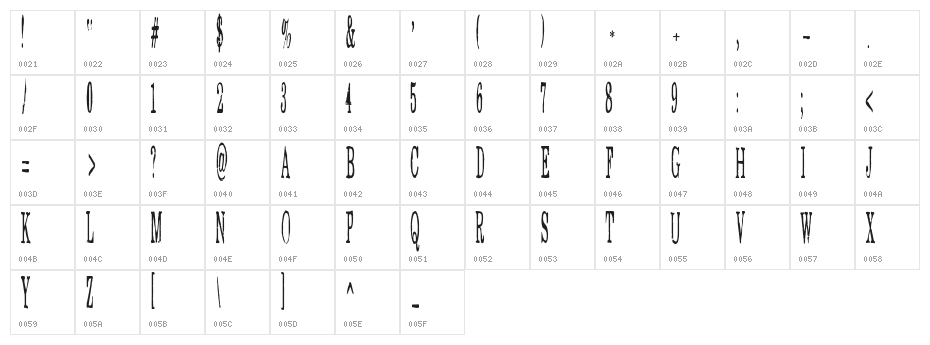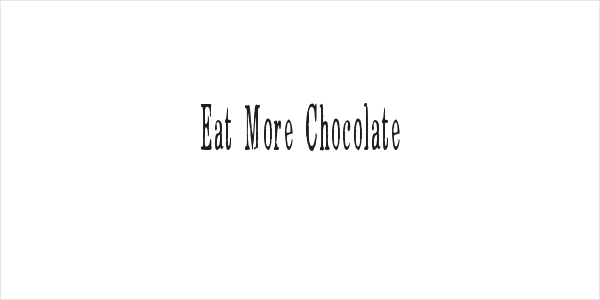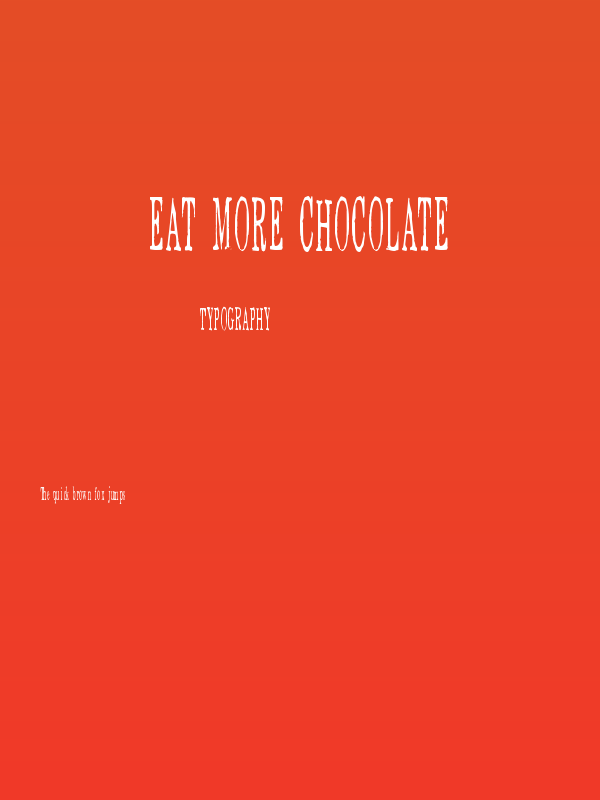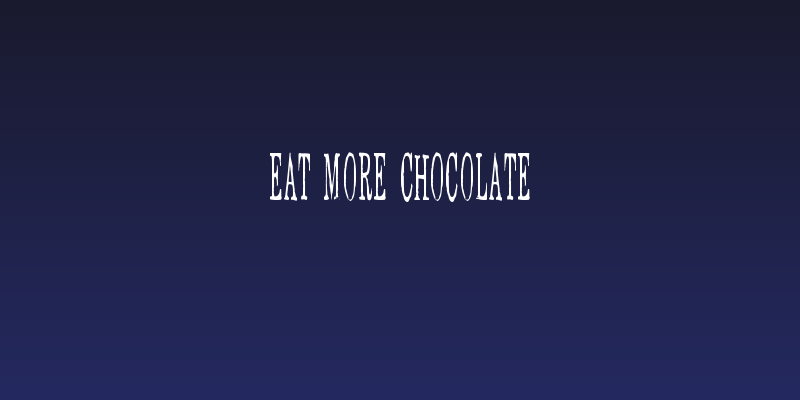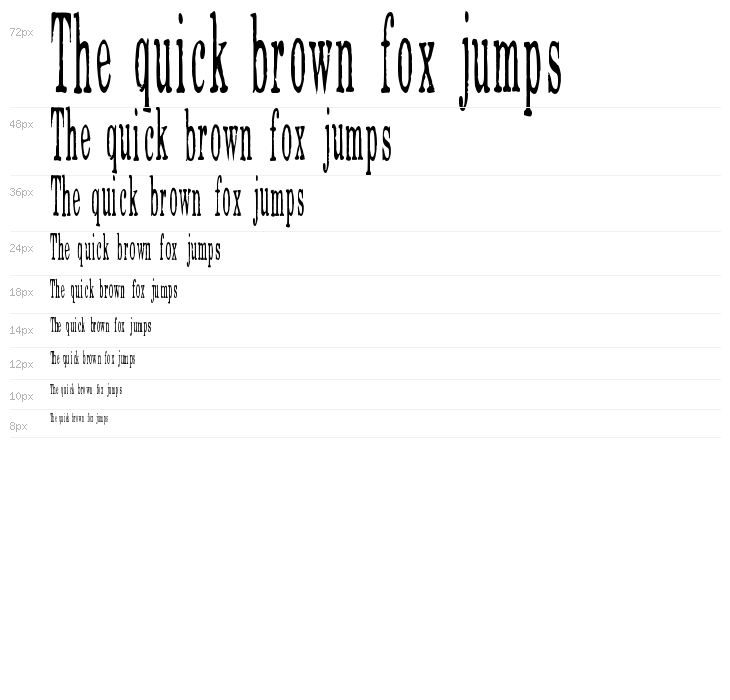
Eat More Chocolate Font
Eat More Chocolate Description
This font features a distressed, vintage style with a bold and impactful presence. The uppercase letters are tall and narrow, with a slightly uneven texture that gives a hand-crafted feel. The lowercase letters maintain this rugged aesthetic, offering a consistent look across both cases. Numbers and special characters follow the same design, ensuring uniformity. The font's unique character is enhanced by its rough edges and irregularities, making it ideal for projects that require a rustic or antique touch.
| Proposed Projects | Ideal for vintage-themed posters, rustic branding, antique product packaging, and creative design projects that require a touch of nostalgia. |